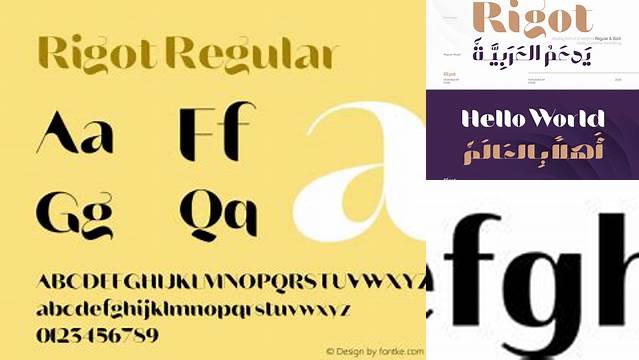
Rigot Regular Font: Free Download & Uses (PDF Guide)
Hey guys! Are you on the hunt for a unique and versatile font to spice up your design projects? Look no further! We're diving deep into the world of Rigot Regular font, a typeface that's been making waves in the design community. In this comprehensive guide, we'll explore everything you need to know about Rigot Regular, including its history, characteristics, uses, and, most importantly, where you can snag a free download in PDF format. So, buckle up and let's get font-astic!
Unveiling the Charm of Rigot Regular
In the realm of typography, Rigot Regular stands out as a font that seamlessly blends classic elegance with contemporary flair. Its clean lines and balanced proportions make it a true workhorse, suitable for a wide range of applications. From crafting compelling headlines to ensuring readability in body text, Rigot Regular proves its versatility time and time again. But what exactly makes this font so special? Let's delve into its key characteristics.
First and foremost, Rigot Regular's readability is a major selling point. The letterforms are meticulously designed with ample spacing and a clear structure, ensuring that the text remains legible even at smaller sizes. This makes it an excellent choice for body text in books, articles, and websites. Furthermore, the font's clean and modern aesthetic lends itself well to branding materials, such as logos, brochures, and presentations. Rigot Regular exudes professionalism and sophistication, making it ideal for businesses and organizations seeking to convey a trustworthy image. However, Rigot Regular isn't just about practicality; it also boasts a distinct personality. The subtle curves and unique details in the letterforms add a touch of character, preventing the font from feeling sterile or generic. This makes it a great option for creative projects, such as posters, invitations, and social media graphics, where a balance between readability and visual appeal is crucial. When you choose Rigot Regular, you're not just selecting a font; you're investing in a tool that can elevate your designs and communicate your message with clarity and style. The font's versatility extends to both print and digital mediums, ensuring a consistent look and feel across all your projects. Whether you're designing a website, creating a presentation, or crafting a marketing campaign, Rigot Regular will be a reliable companion, helping you achieve your desired aesthetic. Ultimately, Rigot Regular's charm lies in its ability to adapt to different contexts while maintaining its inherent elegance. It's a font that can be both understated and impactful, making it a valuable asset for any designer or creative professional.
Delving into the History of Rigot Regular
To truly appreciate a font, it's helpful to understand its origins and the story behind its creation. While the exact history of Rigot Regular might be shrouded in some mystery (details can sometimes be scarce for certain fonts!), understanding the general landscape of font design can provide valuable context. Font design is an art form that has evolved over centuries, with each era leaving its mark on the styles and trends that we see today. From the elegant serifs of classic typefaces to the clean lines of modern sans-serif fonts, the history of typography is a fascinating journey through cultural and technological shifts.
Where to Use Rigot Regular: Unleashing its Potential
Now, let's get practical! Where can you actually use Rigot Regular in your design projects? The beauty of this font lies in its adaptability. It's like that trusty pair of jeans that you can dress up or down – Rigot Regular fits seamlessly into various design scenarios. Let's explore some specific examples.
For starters, Rigot Regular is an excellent choice for body text. Its readability is top-notch, ensuring that your audience can comfortably read through long paragraphs without straining their eyes. This makes it perfect for books, articles, reports, and website content. The clean and clear letterforms prevent the text from appearing cluttered, even at smaller sizes. Imagine using Rigot Regular in a novel – the elegant yet unobtrusive typeface would allow the story to take center stage, without the font itself becoming a distraction. Similarly, in a business report, Rigot Regular's professional aesthetic would lend credibility and trustworthiness to the information presented. But Rigot Regular's versatility doesn't stop at body text. It also shines as a headline font, particularly when you want to convey a sense of sophistication and modernity. The font's balanced proportions and subtle curves create a visually appealing headline that grabs attention without being overly assertive. Think about using Rigot Regular for the title of a magazine article or the heading of a website section. The font would add a touch of elegance while maintaining a clear and concise message. In the realm of branding, Rigot Regular can be a valuable asset. Its clean and professional look makes it suitable for logos, business cards, and marketing materials. A logo set in Rigot Regular would project an image of reliability and competence, while business cards using the font would convey a sense of understated elegance. Furthermore, Rigot Regular works well in digital designs, such as websites and apps. Its legibility on screens is excellent, and its modern aesthetic complements contemporary design trends. Whether you're designing a website layout or creating an app interface, Rigot Regular will ensure that your text is both readable and visually appealing. In summary, Rigot Regular is a true all-rounder. Whether you're working on print or digital projects, formal or informal designs, this font will rise to the occasion. Its adaptability and timeless appeal make it a valuable addition to any designer's toolkit. So, go ahead and unleash the potential of Rigot Regular in your next creative endeavor!